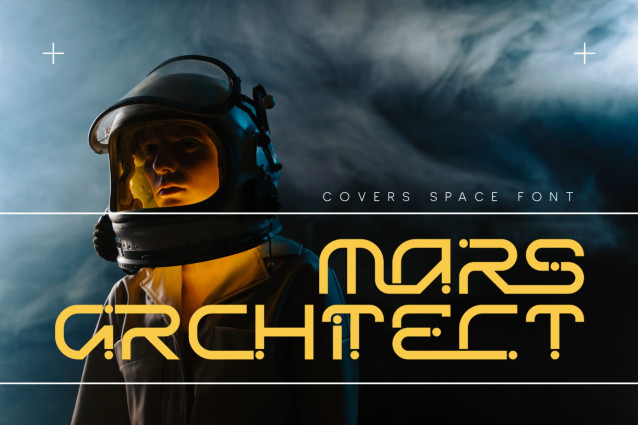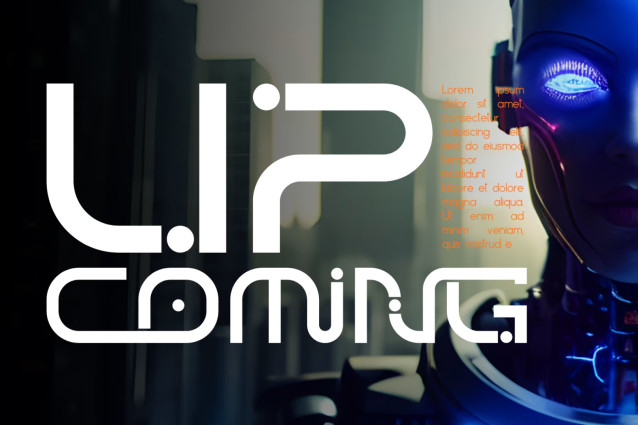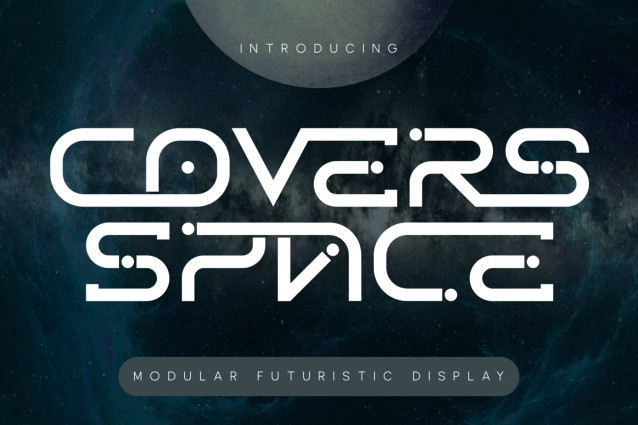
Covers Space Font
Covers Space Font is a futuristic sci-fi display font crafted with sleek geometric shapes and a clean monoline structure. Inspired by advanced technology, digital interfaces, and space exploration, this typeface features smooth curves, modular letterforms, and distinctive circular details that create a bold and innovative visual identity. With its minimalist construction, rounded edges, and futuristic cut-outs, Covers Space delivers a modern high-tech aesthetic that feels both sophisticated and forward-thinking. Every character is carefully designed to achieve maximum visual impact while maintaining excellent readability.